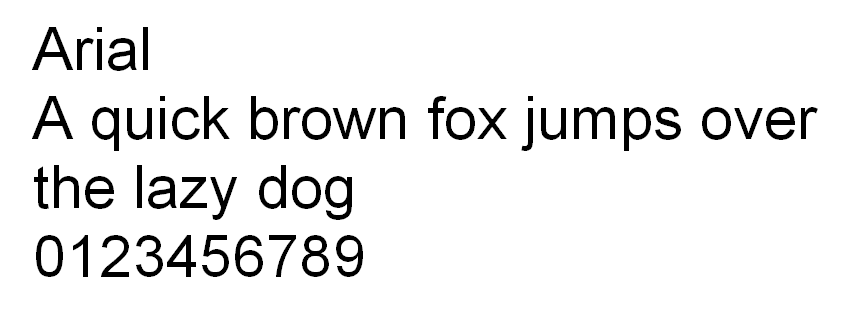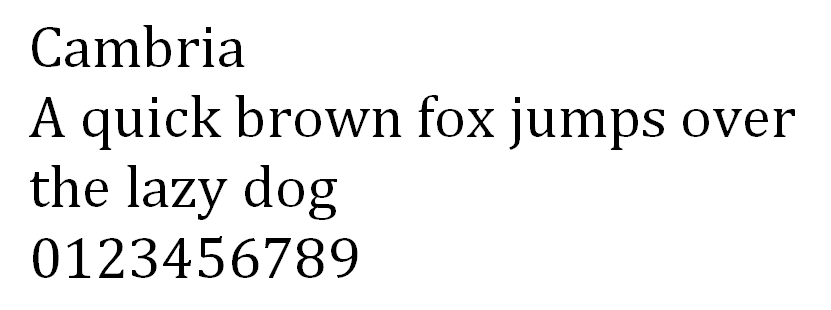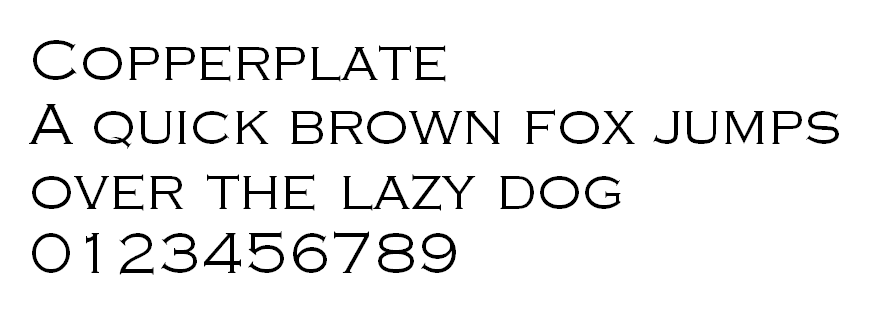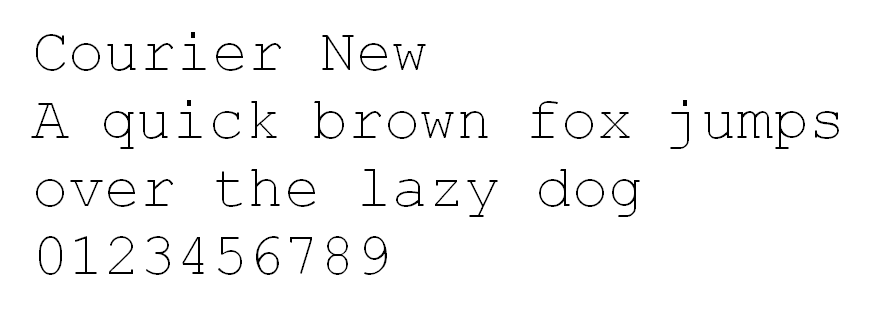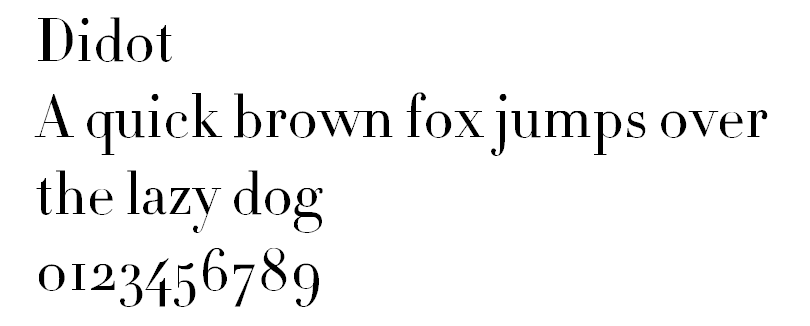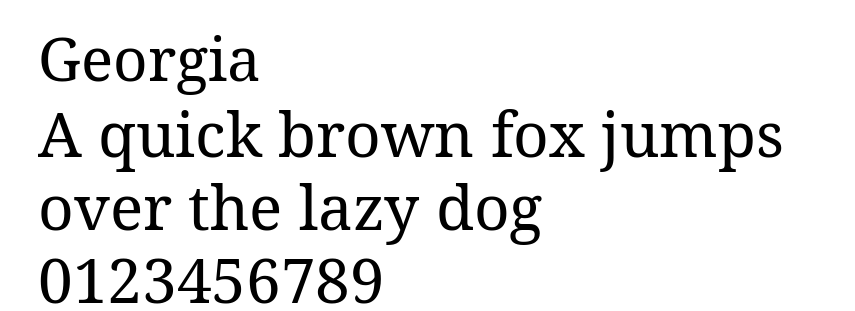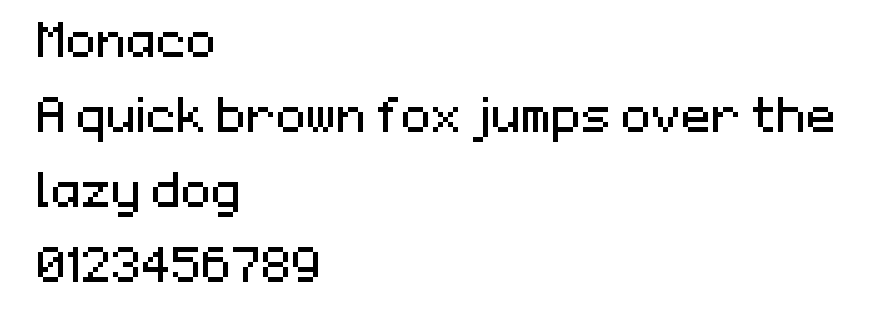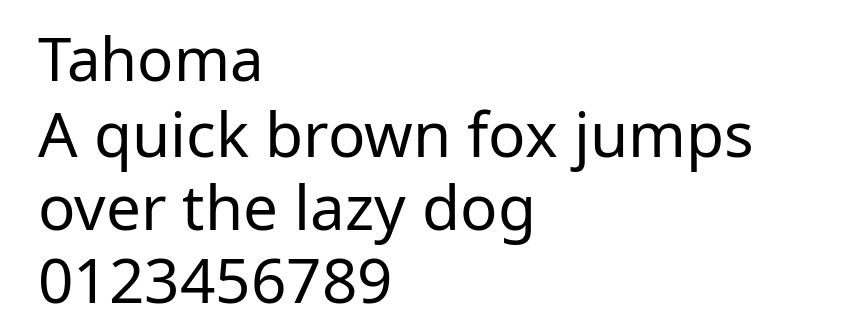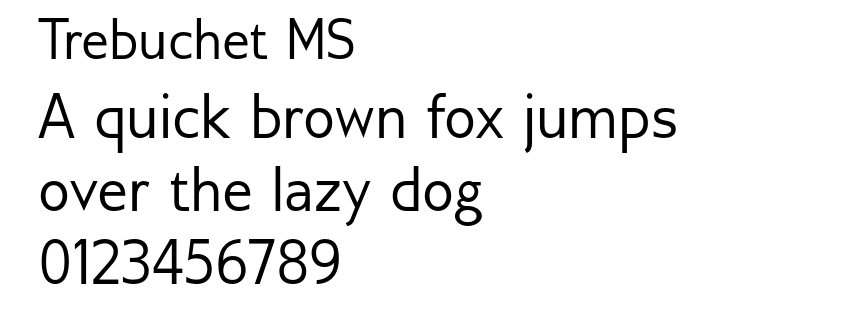
23 best web-safe HTML fonts for your website
The best HTML fonts are web-safe fonts that stay readable, consistent, and visually aligned with your website design across browsers, devices, and operating systems.
Common options include Arial, Helvetica, Verdana, Georgia, Times New Roman, Courier New, Trebuchet MS, and Garamond because they are widely supported and easy to use with CSS font-family declarations.
When choosing an HTML font, prioritize readability, brand fit, font category, fallback support, and how the typeface performs in headings, body text, buttons, and small-screen layouts. Sans-serif fonts usually work well for modern interfaces, serif fonts fit long-form or editorial content, and monospace fonts suit code-related websites.
Best HTML fonts at a glance
FontCategoryBest forSuggested CSS fallback
ArialSans-serifGeneral website textArial, Helvetica, sans-serif
HelveticaSans-serifModern brand websitesHelvetica, Arial, sans-serif
VerdanaSans-serifSmall on-screen textVerdana, Geneva, sans-serif
GeorgiaSerifBlogs and editorial contentGeorgia, "Times New Roman", serif
Times New RomanSerifFormal or academic websites"Times New Roman", Times, serif
Courier NewMonospaceCode and technical content"Courier New", Courier, monospace
Trebuchet MSSans-serifFriendly web interfaces"Trebuchet MS", Arial, sans-serif
GaramondSerifElegant long-form pagesGaramond, Georgia, serif
1. Arial
The letters and numbers of Arial.
Arial is a versatile sans-serif font with a contemporary feel. Each letter is thick and sturdy, achieving a clean and minimal look.
Arial has been a staple screen font due to its readability when scaled to any size. In fact, it is the default font for Google Docs.
Other than that, this typeface is also popular in printed media such as newspapers and advertisements.
Overall, if you’re looking for a classical font that will be suitable for most websites, Arial is a great choice.
2. Arial Narrow
The letters and numbers of Arial Narrow.
Arial Narrow is one out of 38 styles of the Arial font family. Compared to the original typeface, this style offers a much more sleek design.
Letters appear narrow and condensed, with little space between them. This makes Arial Narrow a great choice for minimalistic websites.
Great font-pairing options include bolder sans-serif typefaces such as Verdana and Geneva.
3. Georgia
The letters and numbers of Georgia
Georgia is a classic serif font designed for clear on-screen reading. Its letters have strong contrast, wide spacing, and distinctive serifs, making the text easy to read even at smaller sizes.
This font is commonly used for blogs, editorial websites, online magazines, and long-form content. It gives written content a polished and traditional look while keeping paragraphs readable on digital screens.
If you want an HTML font that feels elegant but still practical for body text, Georgia is a strong choice. It works especially well for websites that publish articles, guides, essays, or educational content.
4. Times
The letters and numbers of Times.
Times is a highly legible serif font due to its visible contrast and condensed style.
People tend to be familiar with this font as it’s found in a variety of media, from books and messaging apps to commercial publishing projects.
Originally, Times was primarily used in printed media such as newspapers, becoming associated with journalism and academic writing ever since.
Therefore, this font is the perfect choice to create a familiar and formal feeling on your website.
Additionally, this font is suitable for websites with long blocks of text, such as online newsrooms and blogs.
5. Times New Roman
The letters and numbers of Times New Roman.
Times New Roman is a variation of the Times font from the serif font type.
It is a popular text typeface widely used in printed media such as magazines and books but also a very popular font in HTML due to its versatility and legibility.
With its professional font style, Times New Roman has become the favorite choice for formal content found in news publications and educational websites.
6. Helvetica
The letters and numbers of Helvetica.
Helvetica is a versatile HTML font as its clean design is suitable for any type of display.
It’s a popular sans serif typeface used by many renowned brands. For example, Jeep, Microsoft, Motorola, and BMW use this font for their logos.
Other than that, the U.S. government also uses Helvetica on its tax forms.
Furthermore, this font type is designed for small size uses such as text displayed on e-readers and mobile devices.
7. Courier
The letters and numbers of Courier.
Courier is the most famous font in the slab serif classification – all operating systems come prepackaged with it.